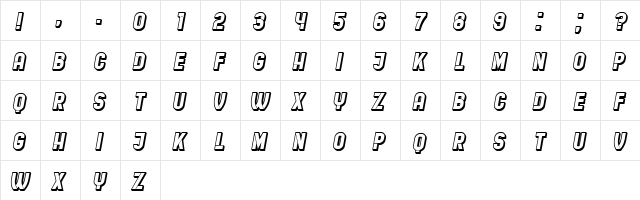
Restaurant Menu Hollow Regular
Design Context for Restaurant Menu Hollow Typeface
Restaurant Menu Hollow offers clean, dependable letterforms without strong stylistic allegiance, making it a practical choice for designers who need flexibility.